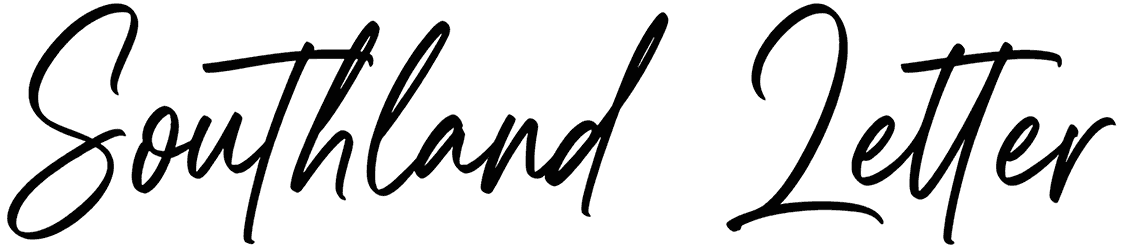
Southland Letter Font
If you are planning to adorn your new design text in a chic and modern way, this item can attract your attention. As a handwritten font, Southland Letter possesses a natural and smooth lettering that can be harmonized with formal or informal subjects. With an almost full cover of characters, this calligraphy font will work well to display your projects, from branding to Instagram posts.
Southland Letter Handwritten Font. Made from natural pen.
it will make your design project more beautiful.
The font is suitable for any design like branding, fashion,